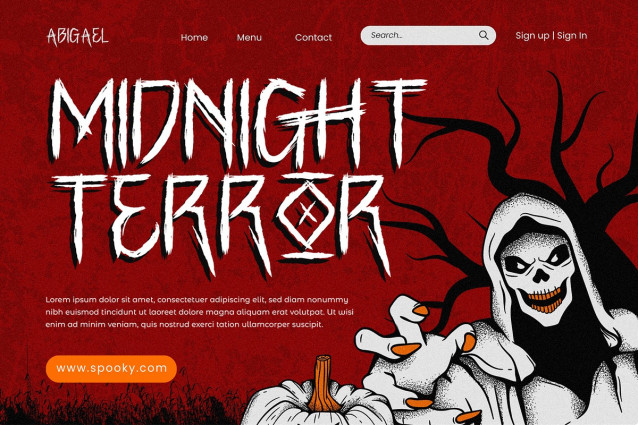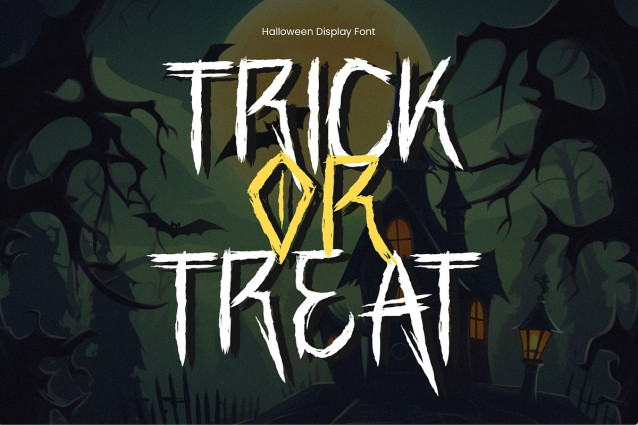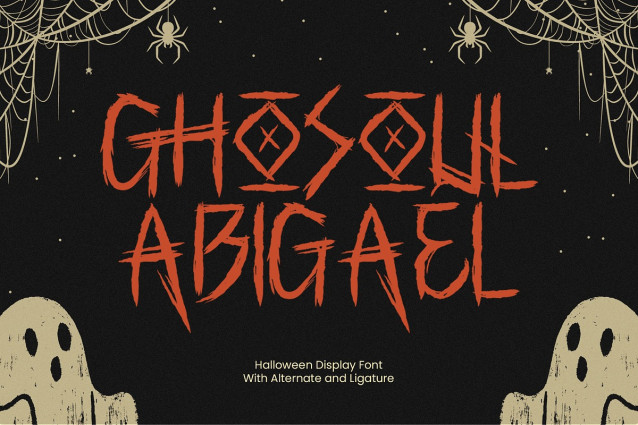
Ghosoul Abigael Font is a creepy, hand-drawn Halloween display font with rough brush textures and haunted vibes. Designed with alternate characters and spooky ligatures, it’s perfect for horror movie titles, Halloween posters, eerie party invitations, trick-or-treat merch, and ghostly packaging. The font drips with mystery, fear, and playful terror — ideal for any seasonal design with a haunted twist. Comes in OTF & TTF formats with alternates and ligatures.